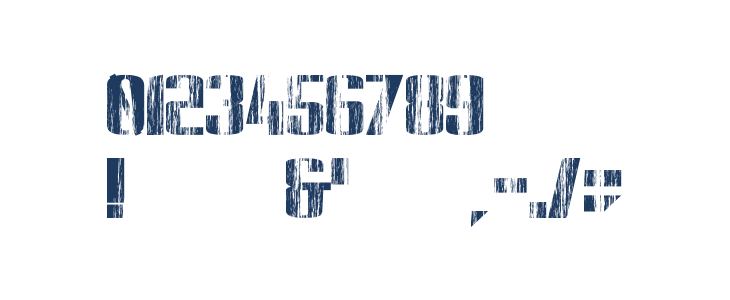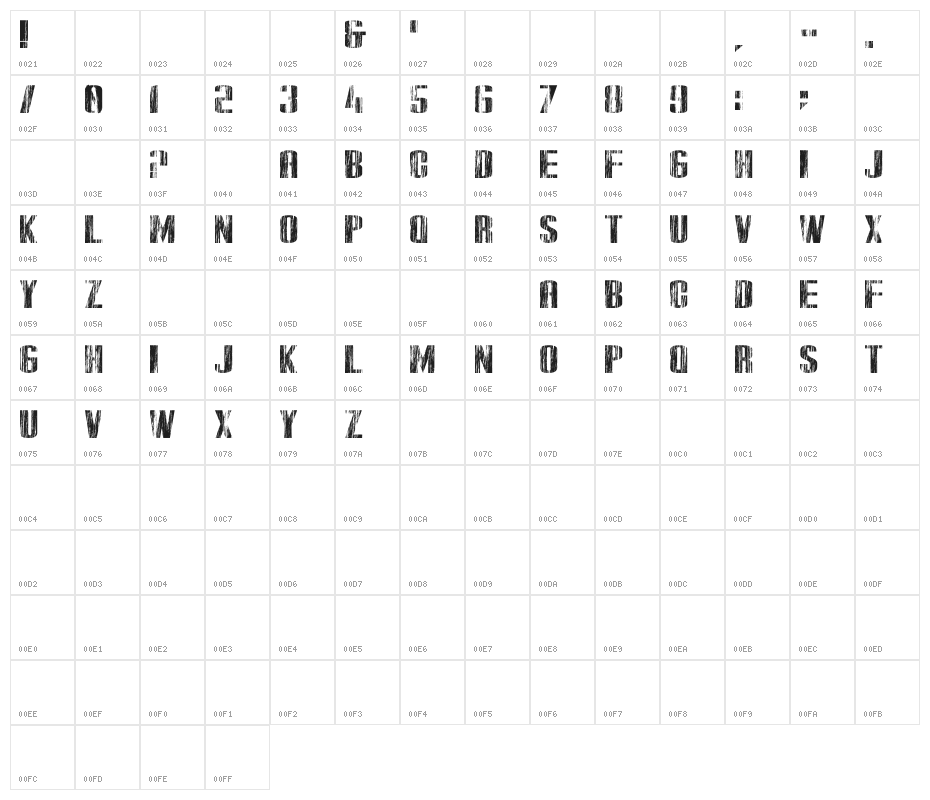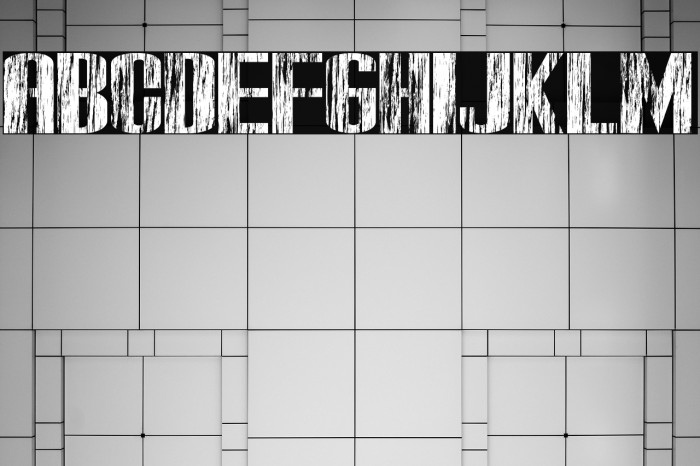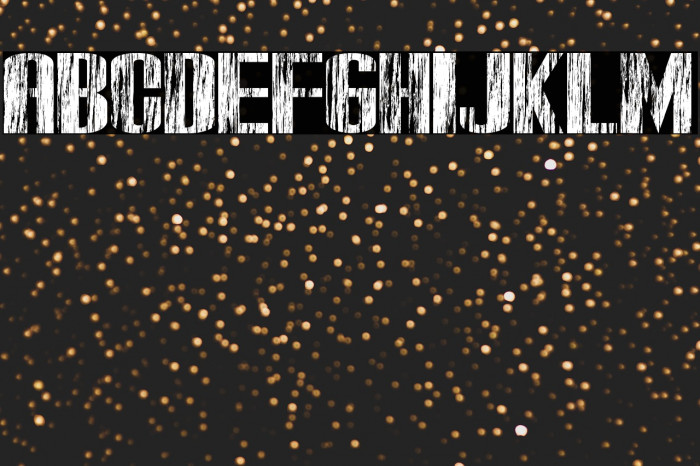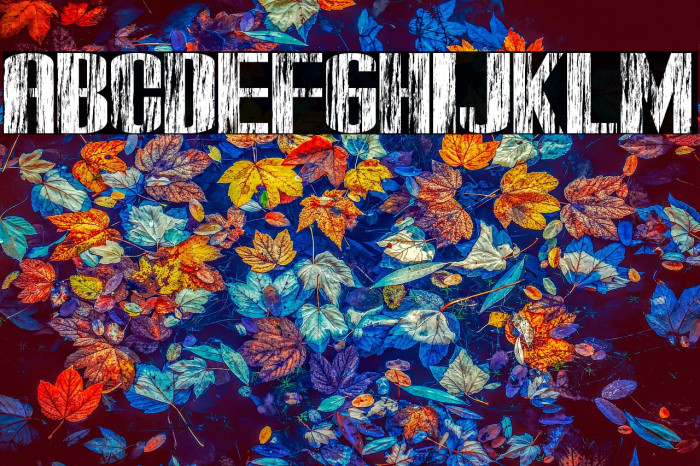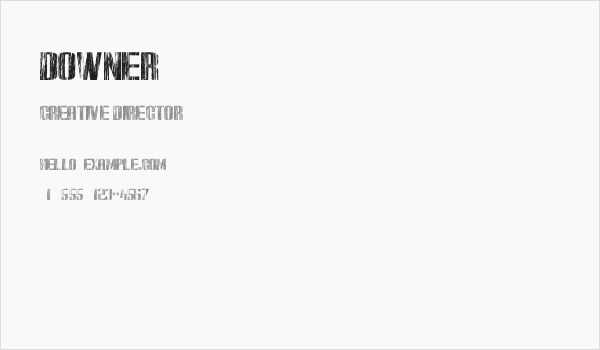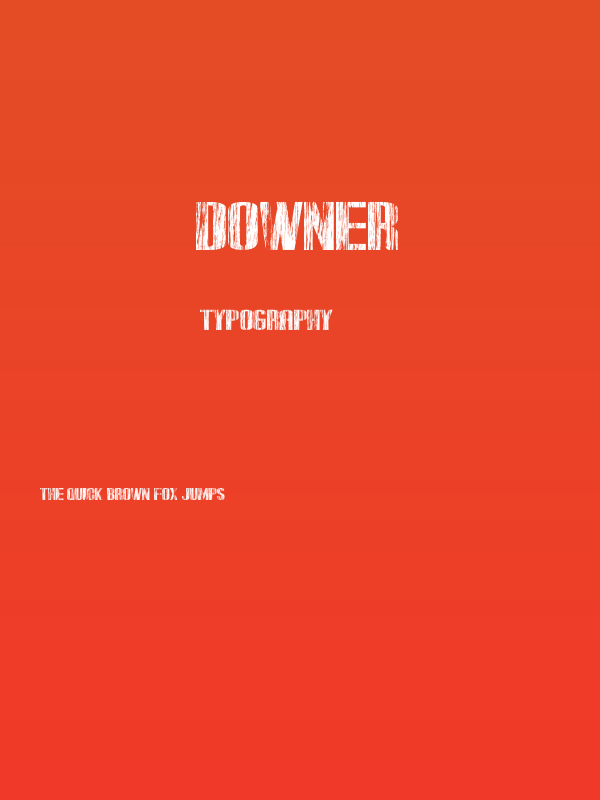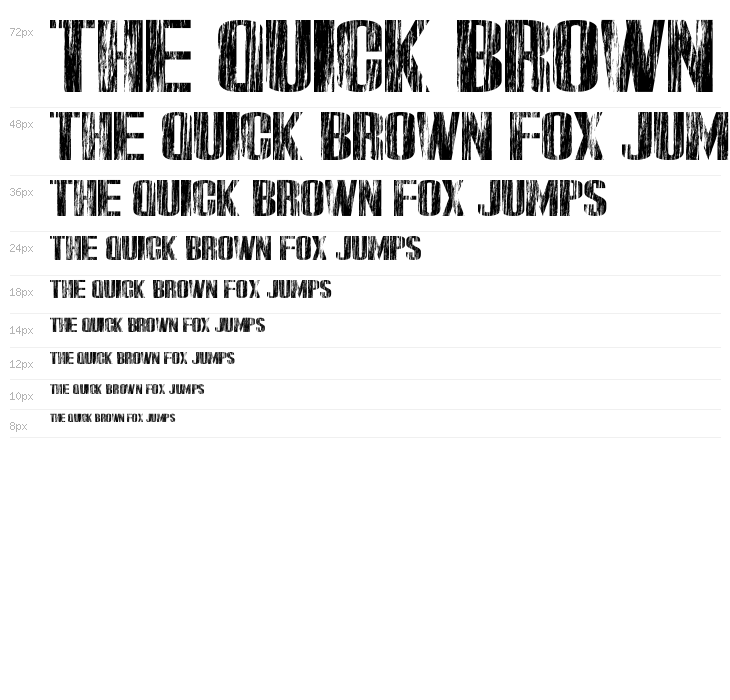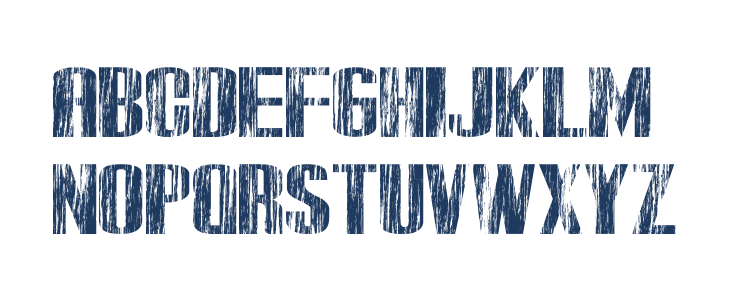
Downer Font
Downer Description
This font features a distressed, grunge style with a bold and impactful presence. The characters are heavily textured, giving the appearance of being worn or eroded. This effect adds a rugged, edgy feel to the typeface, making it ideal for designs that require a raw and gritty aesthetic. The uppercase and lowercase letters maintain a consistent style, with each character exhibiting unique distress patterns. The numbers and special characters follow the same design, ensuring a cohesive look across all text elements.
| Overall Style | Grunge, Edgy, Distressed |
| Proposed Projects | Ideal for music album covers, posters, urban-themed designs, and any project needing a gritty, raw aesthetic. |